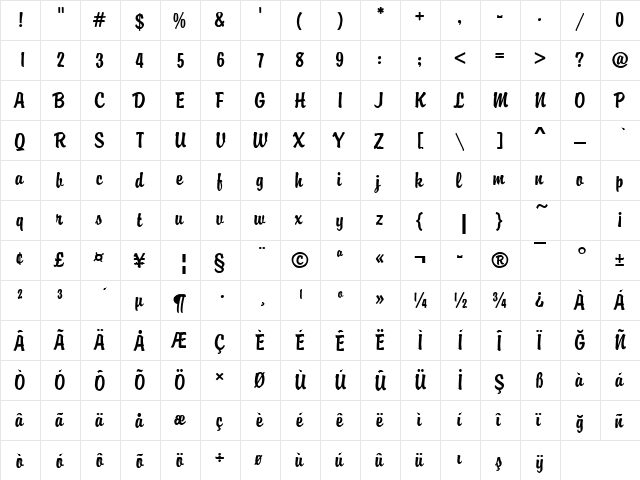
00947 Regular
Design Context for 00947 Typeface
00947 is a composed and adaptable typeface that performs quietly and consistently across a wide range of design contexts.